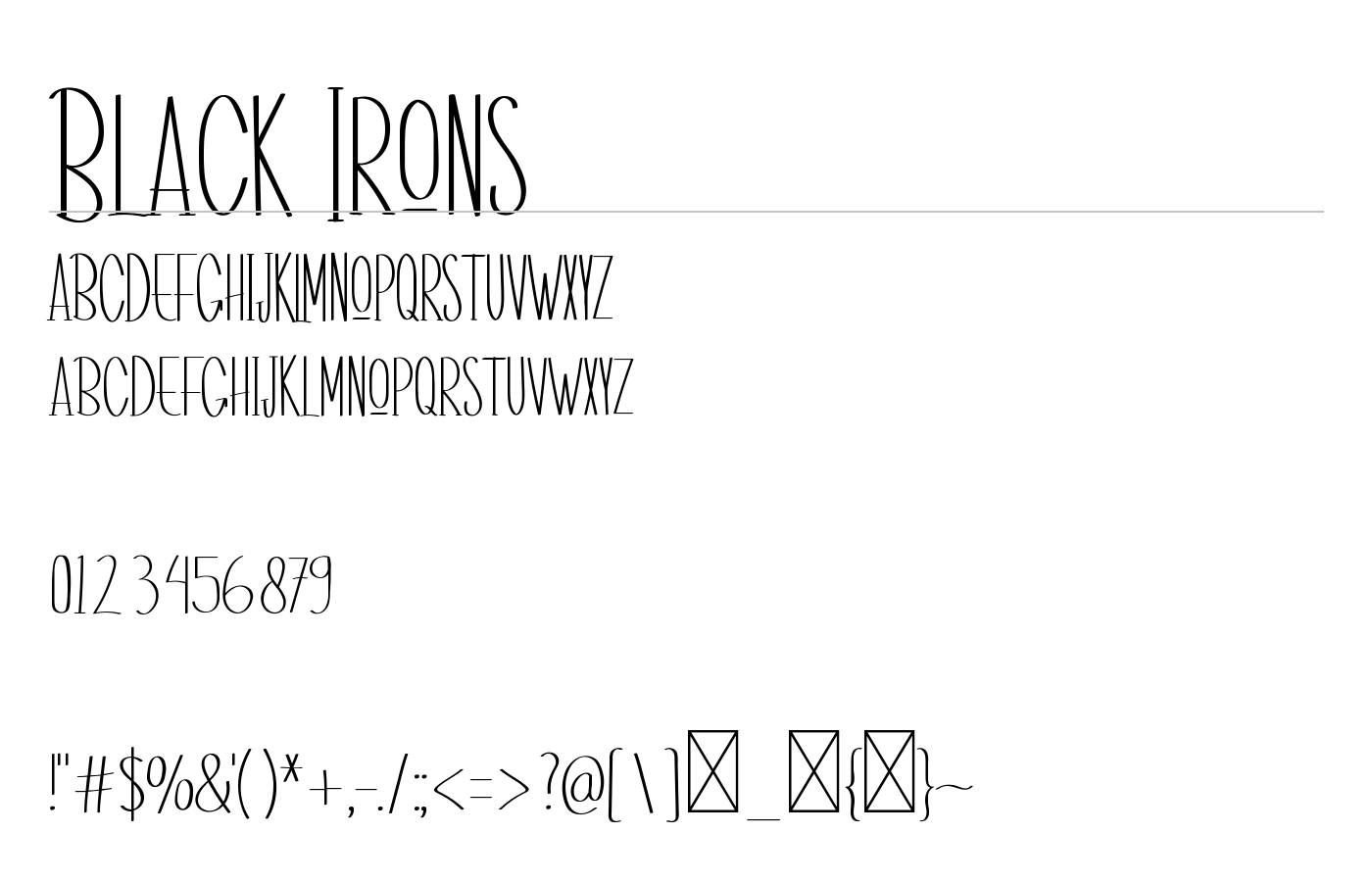
Black Irons is an elegant, tall, and narrow serif font with a vintage, art deco-inspired feel. Its thin strokes and delicate serifs create a refined and sophisticated look, making it perfect for stylish headlines, branding, and editorial designs that want to convey a sense of luxury and timeless charm. This font works best in large sizes where its unique character details can truly shine.
Black Irons Font
| Designer | Frederik Aristaputra |